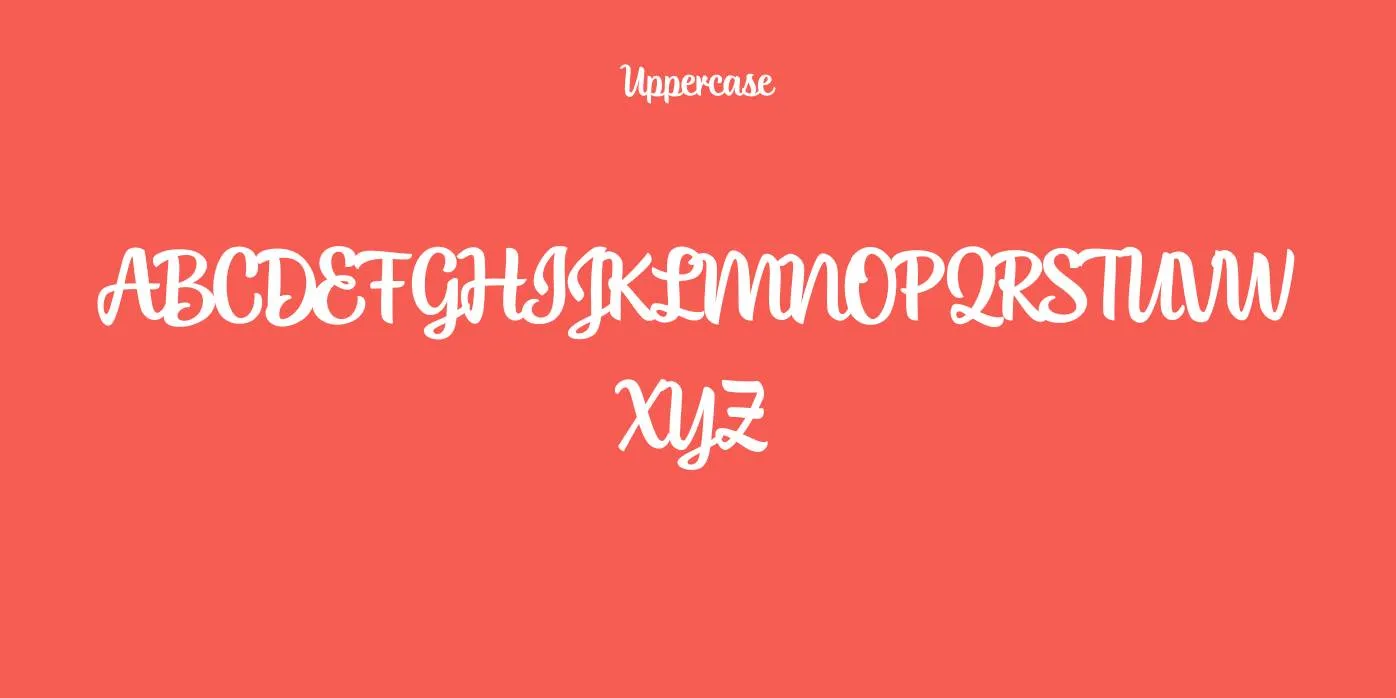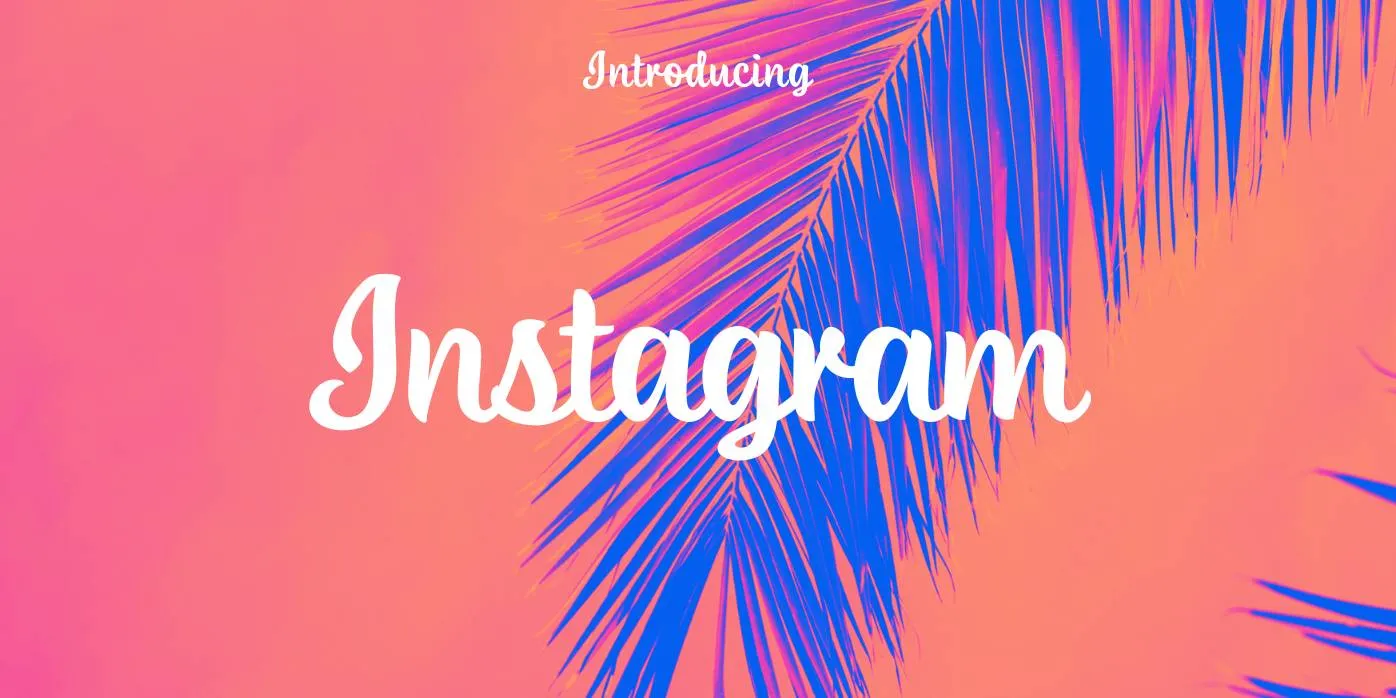
Instagram Font
Here we discuss detailed information about a very interesting font Instagram Font. This amazing font is designed by Kevin Systrom and MikeKriegern. It is famous all over the world nowadays. Basically, it is designed to make the logo of this Instagram application.
This font can also be used on Canva and Adobe to give your designs a creative appearance. The characters of this font have high readability so, it is considered a good font for both print and digital media. As this font is used in the logo, you can use it to create amazing logos, YouTube thumbnails, sign postings, and many more creative projects. Instagram Font View Font Information Edit NameInstagram Font DesignerKevin Systrom and MikeKriegern StyleDisplay TypeOTF,TTF LicenseFree for Personal Use Download Instagram Font You can download this from this site to use in your projects by just clicking on the below download button in a zip file.